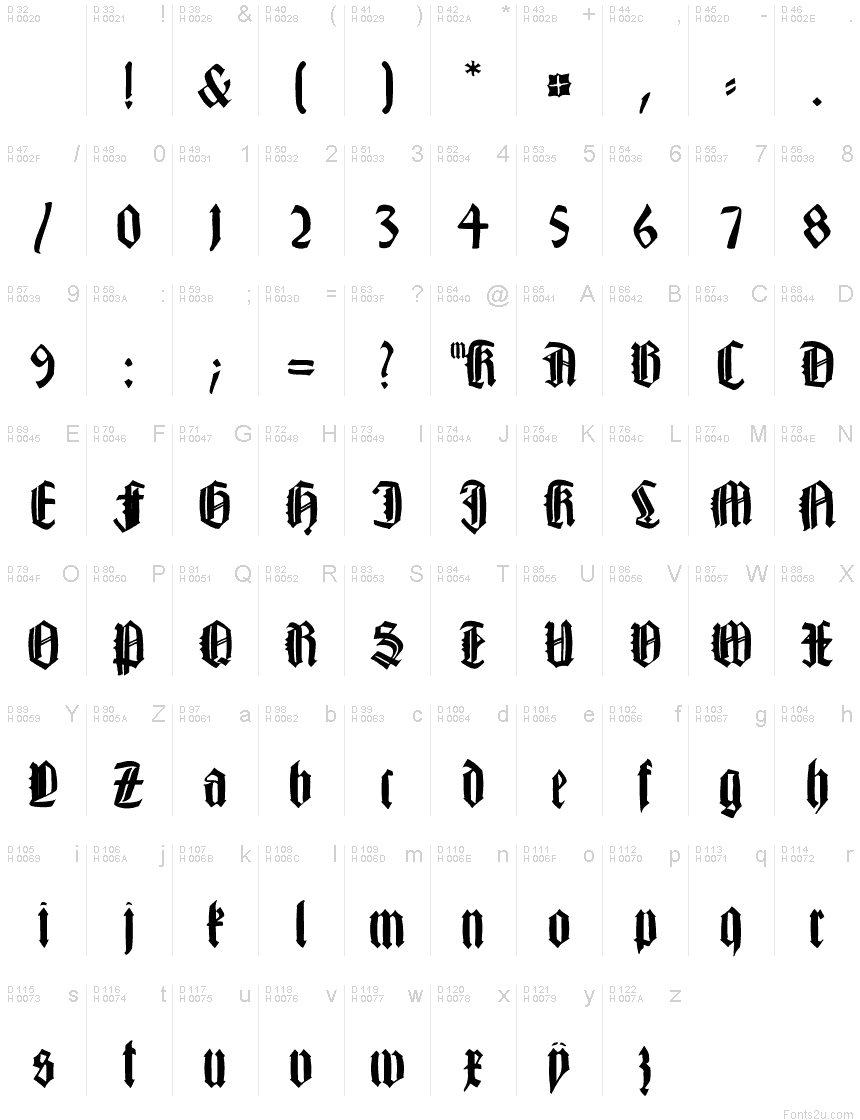
HappyFraxx by M. Klein is a free medieval blackletter font with tall, sharply cut forms and a dense, commanding silhouette. Sharp points and broken curves give the letters a roughly carved look.
A streetwear label or heavy metal act could use it for branding that feels severe and handcrafted. Concert posters and horror game graphics also suit its jagged outlines, which can become part of the artwork. Its strongest home is dark fantasy and medieval entertainment, where the lettering recalls old banners, armor, and engraved signs.